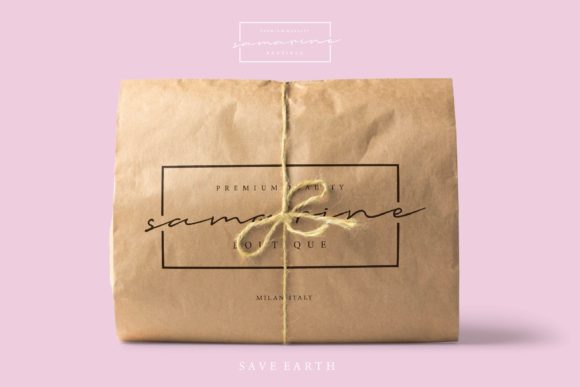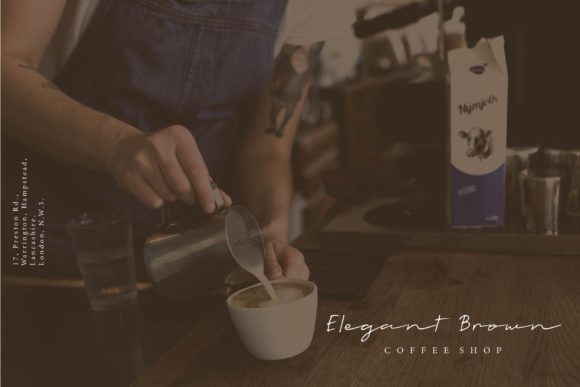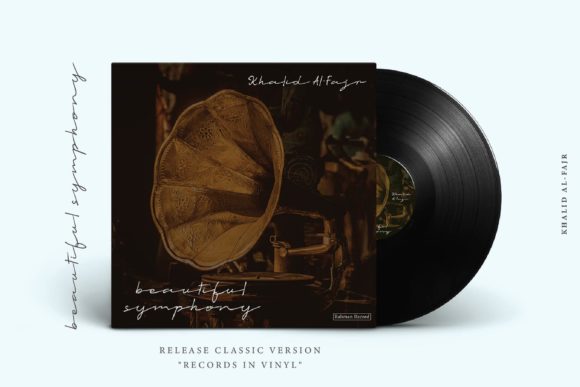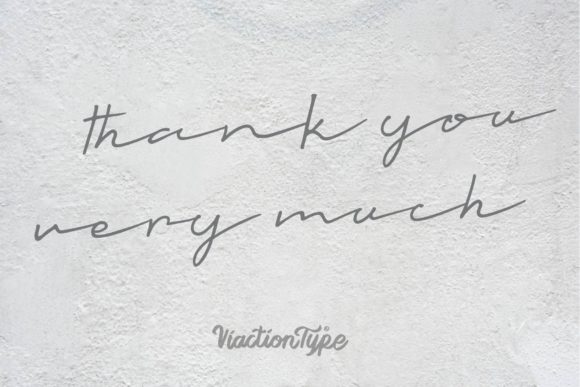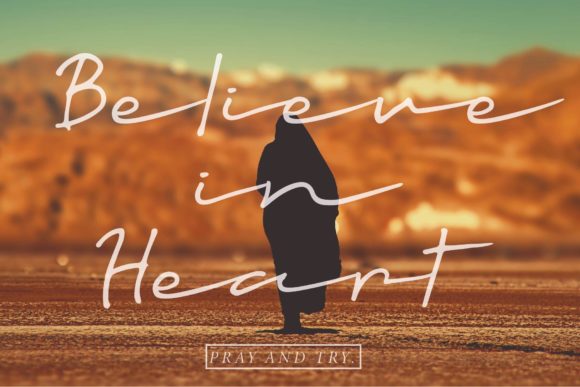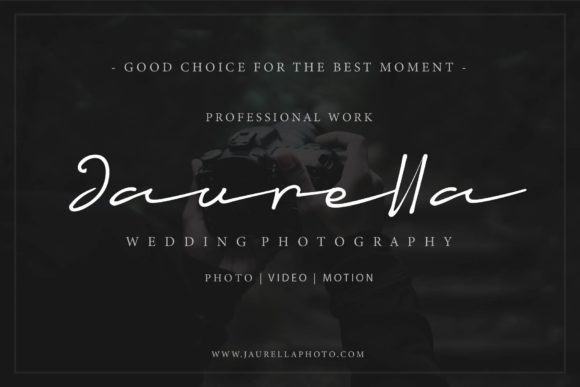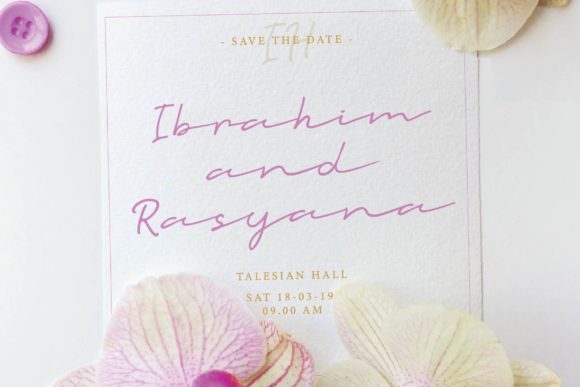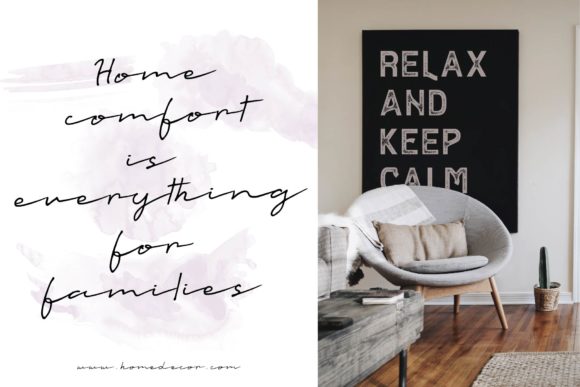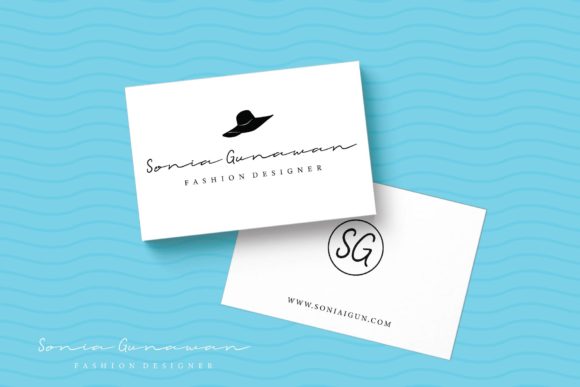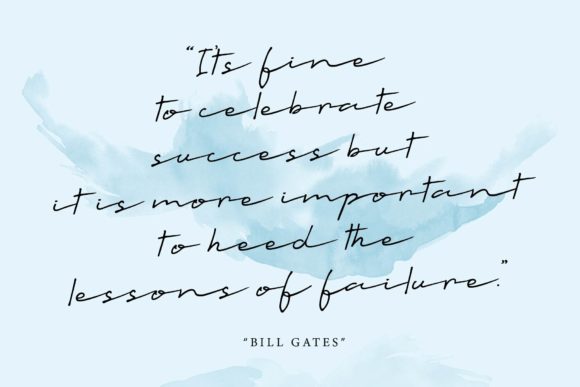
Talesian Font
About Talesian Font
The Talesian is an amazing signature font with an original handwritten style. It has a beautiful and natural look which can be used for boutique brands, photography, magazines, quotes, business cards, logos, posters and much more!